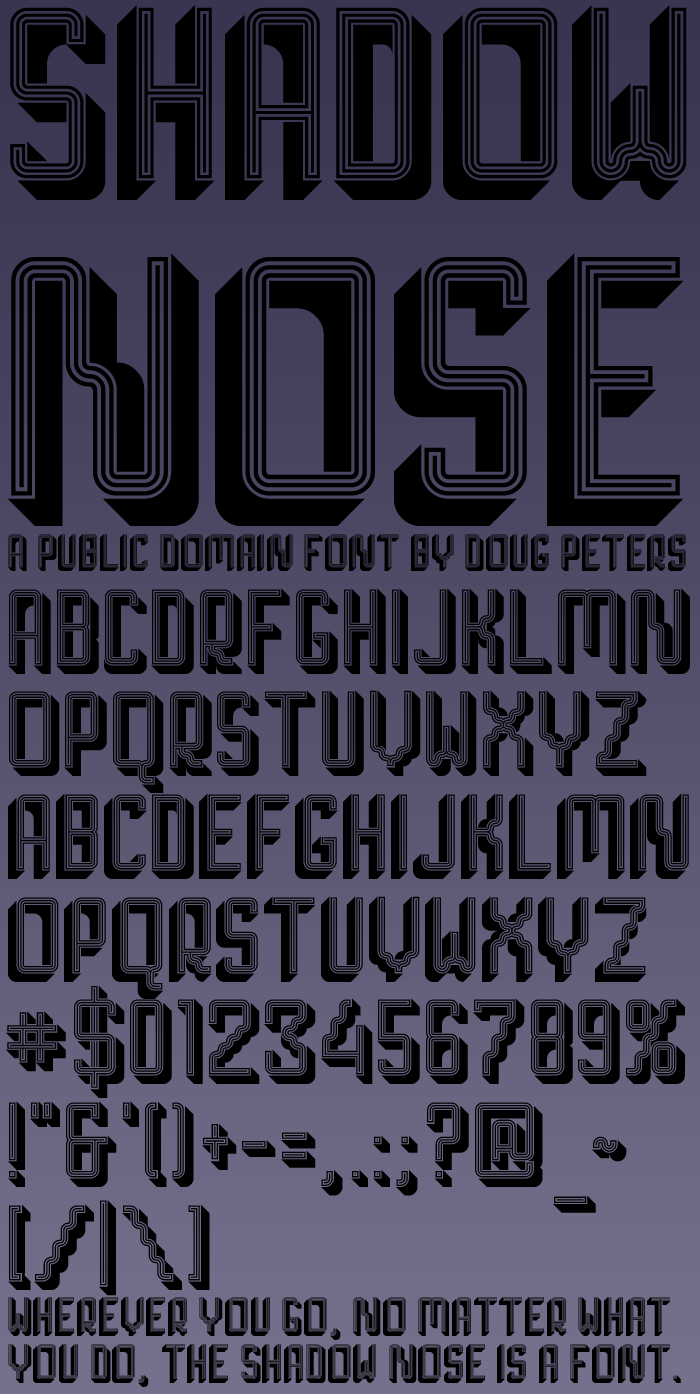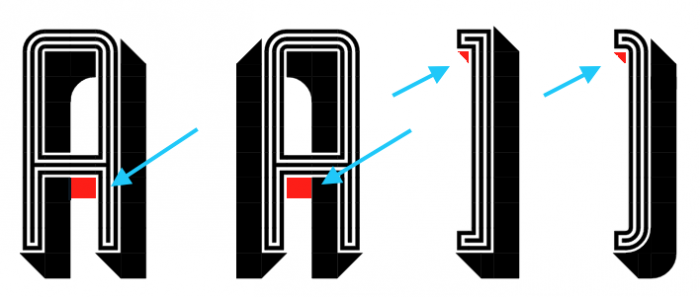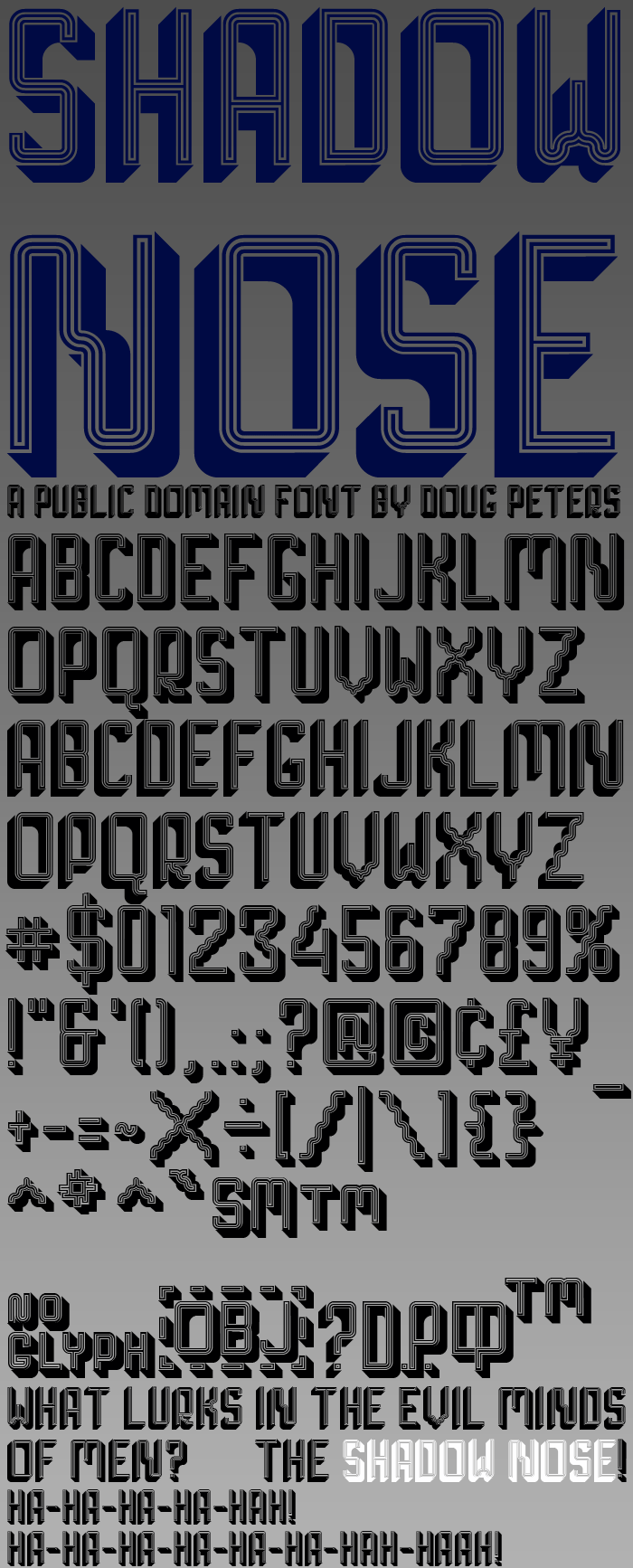
I would like to say that this is 3D, but you can't create 3D in a font yet, because there is no perspective.  So then I go back to my drafting classes and I think it's isometeric, but my professor would have issues with that statement, because it doesn't actually follow the rules. Instead, this is an illusion, meant to give you a 3D or isometeric view, but shortcuts have to be made in order to generate a consistency with the font.
The capitals have the shadow on the right & underneath, while in the lowercase letters the shadow noses down and to the left.
Updated it with some composite bricks to take out the obvious flaws (too many white spots where they should not be).
Sample: A, B, C, D, then R? Something's not right…
Put one eye on this, please.
Very nice Drop Shadowing…
LOL... Thanks guys! I probably shouldn't be trying to finish up the font real quick before I pass out from exhaustion, eh?  Alright, the A, a, } & ) should be OK now, @elmoyenique, I think I corrected those issues and I added 3 characters, so now I can go and create a new preview image and change out the stray R typo for the proper E, @BWM.  I should have that up soon.
You just get so close to finishing, then you pass-out anyway because there is always one more thing.
Whoops, There are still a few drop shadow/shading issues I see.  Maybe I should fix them, first.  Always something, always.
Great work! I wonder whether the O and the Q could be narrower.
If need be, I can change it, but here's my thinking on this...
The extra width helps differentiate the O from the number 0, and because there isn't alot of roundness (the O is usually rounder, and bigger). It also helps differentiate the O from the D when the font is smaller (because the 2 round corners of the D pretty much disappear unless the font is large enough).
I suppose it would be easy to make it 1/2 brick smaller, instead of a full brick? And of course, the Q was just following in line with the O.
I'm gonna think on it for now, I have been up too long (all night and morning), anyway.  Anyone else can chime in with what they think, too.
OK...
I seem to have lost an update post on this page. Needless to say, I was not happy with the skinnier O & Q. When I narrowed them up, other characters looked disproportionately wide.  To rectify that, I widened all the looping characters (and the K & H) 1/2 a brick, and narrowed the M.  I sort of used the design of the W as a means to a skinnier M, but they are a little different.
I think that you can clearly read all the characters this way, even when they are seen at a reduced size.  Because even though it is a 'display' font meant to be seen in BIG text, legibility is still important.
I hope that works better.  To tell you the truth, I kind of like the way it was better.  But I suppose this version is smarter, more professional.
Now I'm thinking that I need to switch out the M and W design forms.  The minor difference between the two would be better on the other character, I think?  Taking a break.